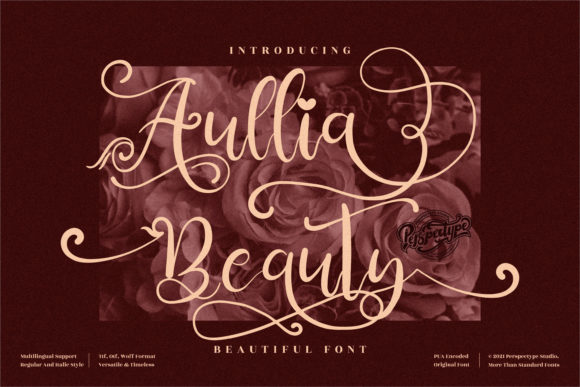
Welcome to the world of Aullia Beauty, a script font that exudes elegance, sophistication, and a touch of modern charm. With its graceful curves, delicate strokes, and captivating allure, Aullia Beauty is the perfect choice for those seeking a font that elevates their designs and captures the attention of their audience.
Let Aullia Beauty take you on a journey of creativity and expression. Its versatility knows no bounds, whether you're crafting logos that leave a lasting impression, branding that exudes professionalism, invitations that evoke a sense of occasion, or stationery that reflects your unique style. With Aullia Beauty, your designs will radiate a timeless beauty that captivates and inspires.
Aullia Beauty's compatibility with a wide range of applications makes it a font that adapts to your every need. Use it with ease in your favorite design software or effortlessly integrate it into your social media posts, creating content that resonates with your audience and leaves an unforgettable mark.
We understand that your designs are not just creations; they are reflections of your passion, your vision, and your unique voice. Aullia Beauty is more than just a font; it's your creative companion, amplifying your message with its timeless elegance and helping you tell your story in a way that captivates and inspires.
To ensure that Aullia Beauty seamlessly integrates into your design workflow, we've meticulously encoded it with PUA, granting you effortless access to a world of glyphs and swashes. Unleash your creativity and explore the endless possibilities that await, transforming your designs into masterpieces that captivate and inspire.
Join the creative revolution and let Aullia Beauty be your guide. Experience the transformative power of a font that elevates your designs, captivates your audience, and tells your story with a touch of elegance and sophistication. Embrace Aullia Beauty today and embark on a creative journey that knows no bounds.